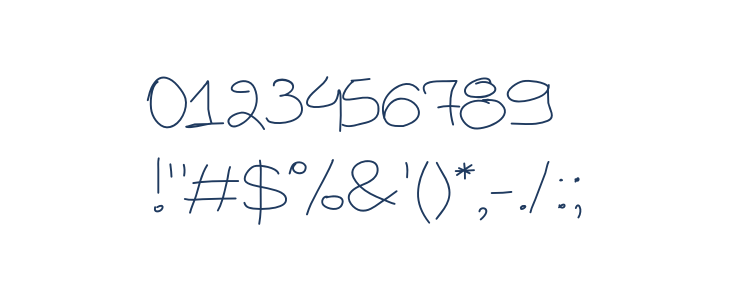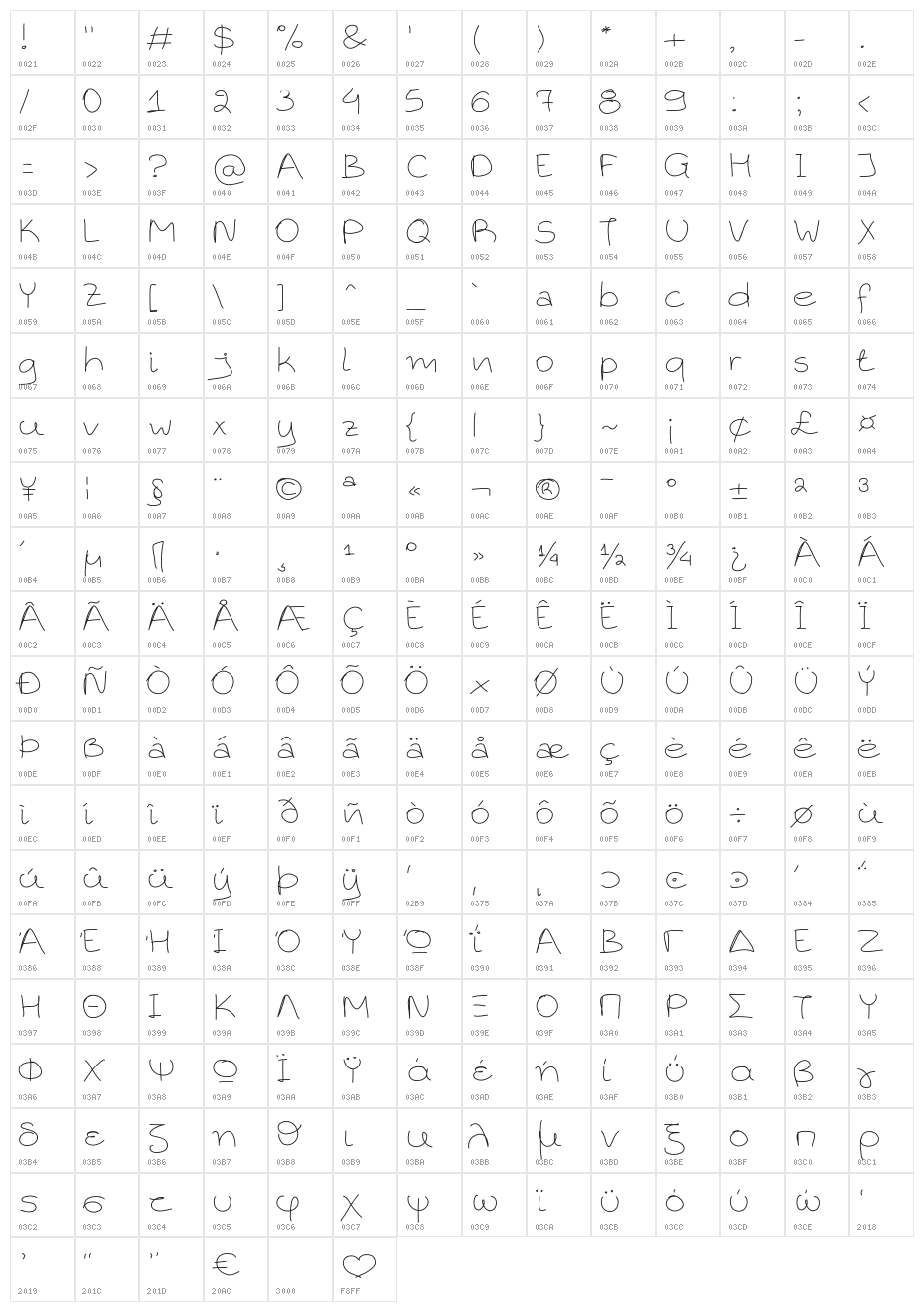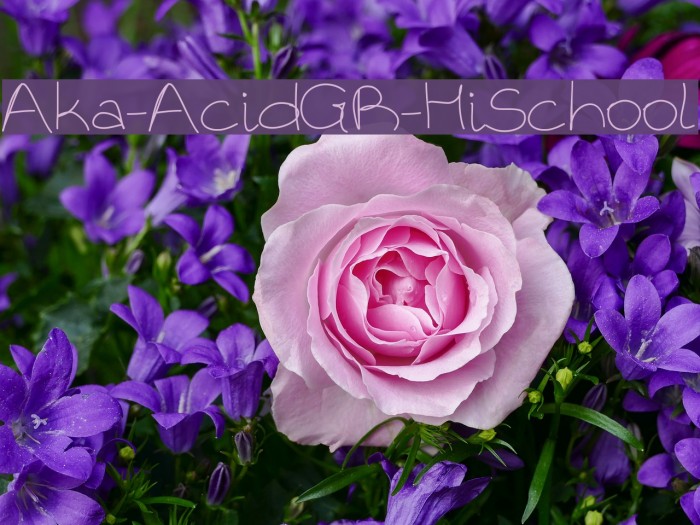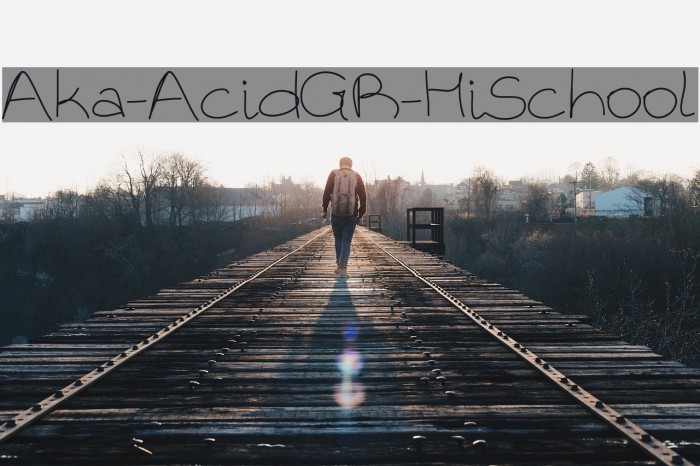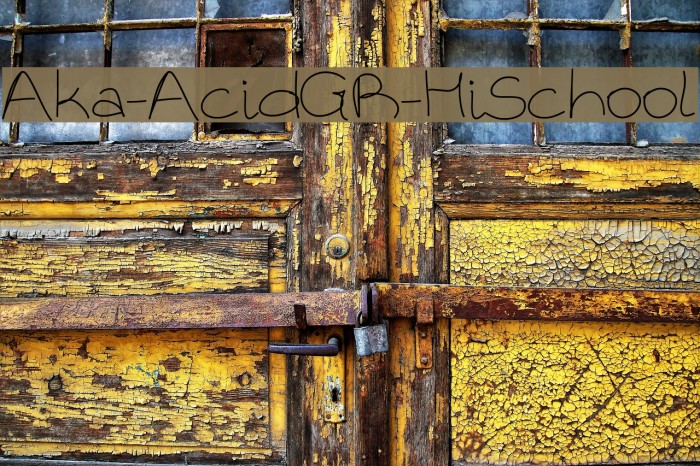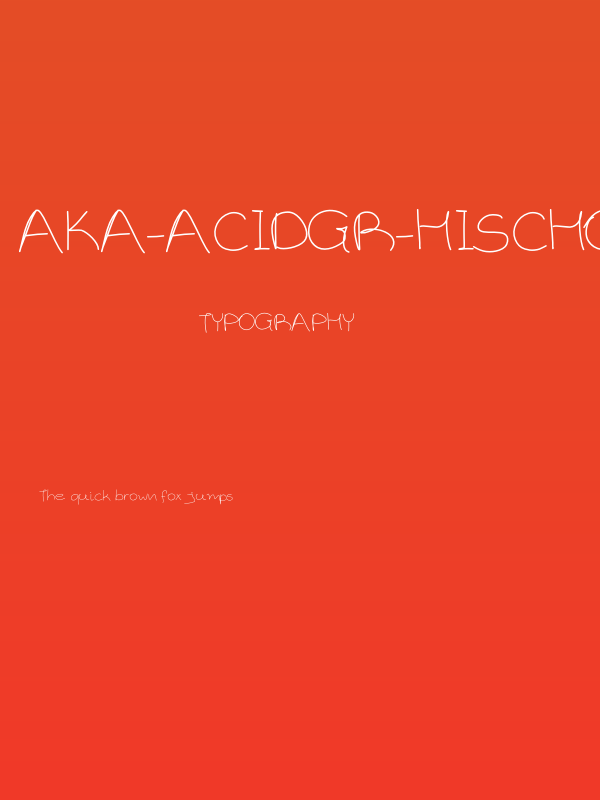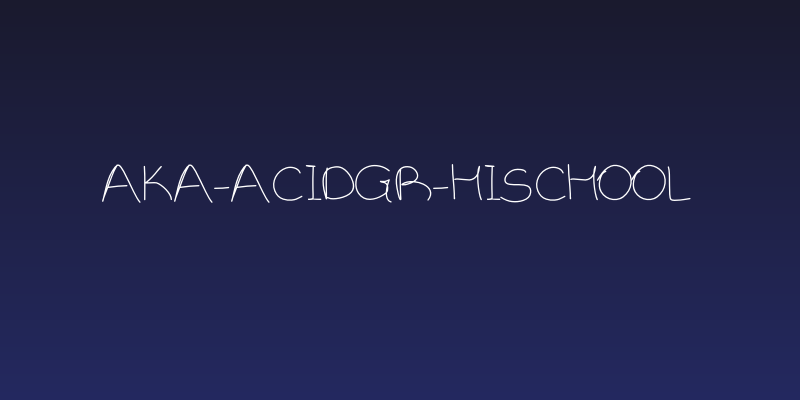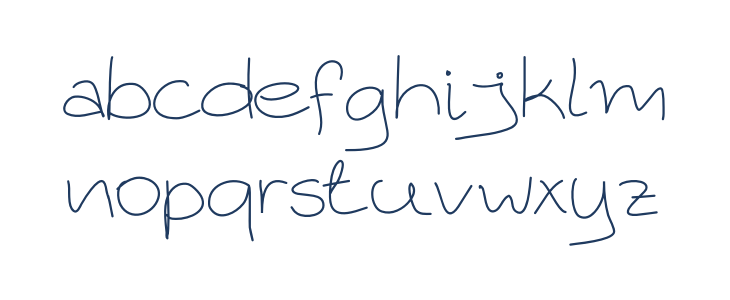
Aka-AcidGR-HiSchool Font
Aka-AcidGR-HiSchool Description
This playful and whimsical font features a handwritten style with a casual, relaxed feel. The letters are slightly irregular, giving it a natural and authentic look, reminiscent of a child's handwriting or a casual note. The strokes are thin and consistent, with a slight tilt that adds to its informal charm. The uppercase and lowercase letters maintain a cohesive style, while the numerals and special characters blend seamlessly with the overall design. This font exudes a youthful and energetic vibe, making it perfect for projects that require a touch of personality and fun.
| Proposed Projects | Ideal for children's books, playful branding, casual invitations, and creative projects that require a personal touch. |